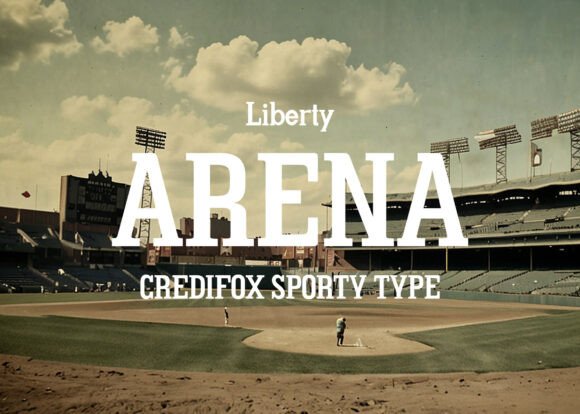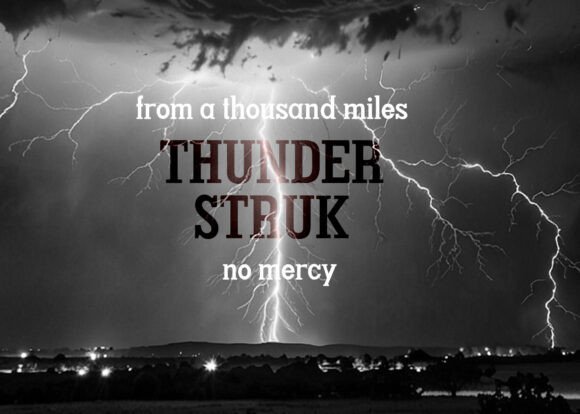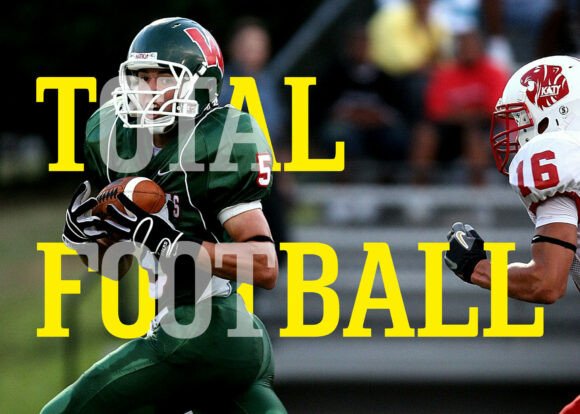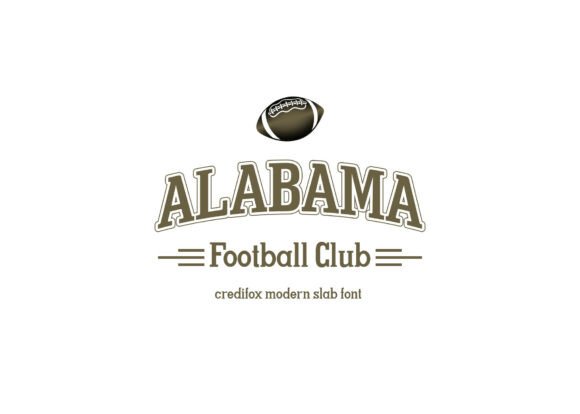
Introducing Credifox Font: The Ultimate Choice for Sports Branding
In the world of sports branding, a font can make all the difference in creating a lasting impression. Credifox Font is a game-changer in this realm, offering a perfect blend of classic and modern design elements. This versatile font is specifically designed to cater to the needs of sports teams, brands, and designers looking for a unique character to elevate their projects.
A Flagship Font for Sports Branding
Credifox Font is aptly described as a true flagship font for sports branding. Its design is rooted in a slab font style and sans serif font style, making it a standout in the world of typography. The clean and simple design of Credifox Font ensures that it can be easily adapted to various projects, from sports logos and branding to posters, apparel designs, magazine titles, labels, and more.
Key Features of Credifox Font
• Classic with a Modern Twist: Credifox Font strikes the perfect balance between classic design elements and modern flair, making it a versatile choice for various applications.
• Clean and Simple Design: The font’s clean and simple design ensures that it can be easily read and recognized, making it perfect for use in a variety of mediums.
• Slab and Sans Serif Font Style: The unique combination of slab and sans serif font styles sets Credifox Font apart from other fonts, giving it a distinctive look and feel.
• Incredibly Versatile: Credifox Font can be used in a wide range of projects, including sports logos, branding, posters, apparel designs, magazine titles, labels, and more.
Why Choose Credifox Font?
For designers and crafters looking for a font that can help them create a unique character for their projects, Credifox Font is an excellent choice. Here are some reasons why:
• Unique Character: Credifox Font allows designers to create a unique character for their projects, setting them apart from others in the industry.
• Ease of Use: The clean and simple design of Credifox Font makes it easy to use in various projects, saving designers time and effort.
• High Versatility: Credifox Font can be used in a wide range of projects, making it a valuable addition to any designer’s font library.
Applications of Credifox Font
Credifox Font is a versatile font that can be used in various applications, including:
• Sports Logos: Credifox Font is perfect for creating sports logos that require a strong and bold character.
• Branding: The font can be used in branding applications, such as creating a unique identity for sports teams and brands.
• Posters: Credifox Font can be used to create eye-catching posters for sports events and promotions.
• Apparel Designs: The font can be used to create stylish and bold apparel designs for sports teams and brands.
• Magazine Titles: Credifox Font can be used to create attention-grabbing magazine titles and headings.
• Labels: The font can be used to create labels and packaging for sports-related products.
In conclusion, Credifox Font is a versatile and powerful font that is specifically designed for sports branding. Its unique combination of classic and modern design elements makes it a standout in the world of typography. With its clean and simple design, Credifox Font is perfect for creating a unique character for various projects, including sports logos, branding, posters, apparel designs, magazine titles, labels, and more. Whether you’re a designer or crafter, Credifox Font is an excellent addition to your font library.